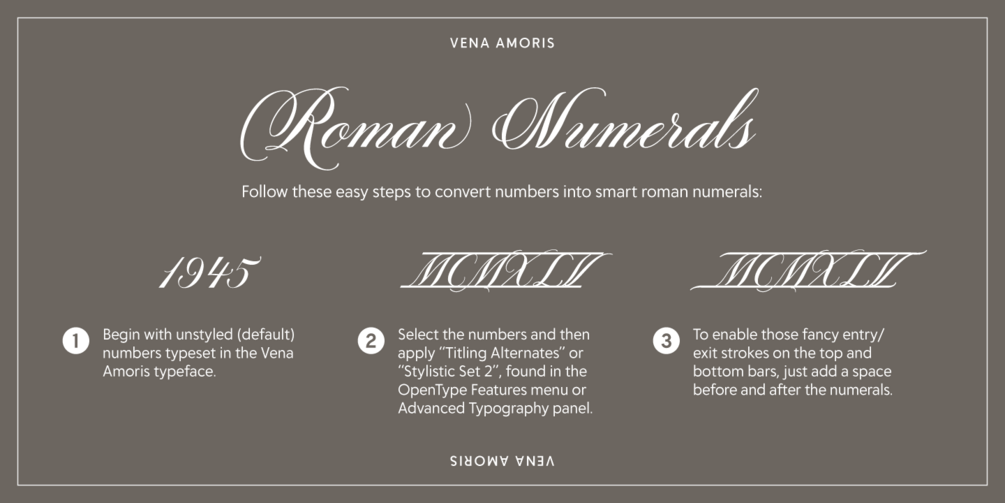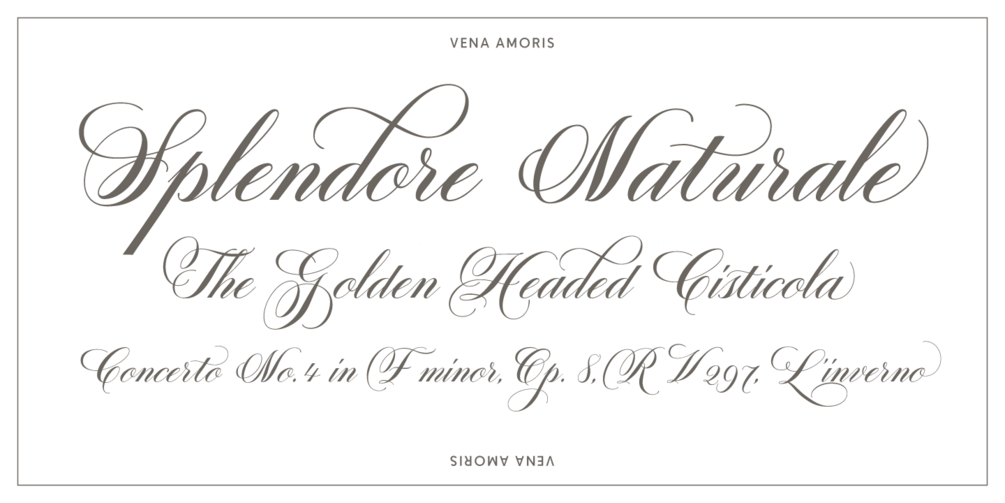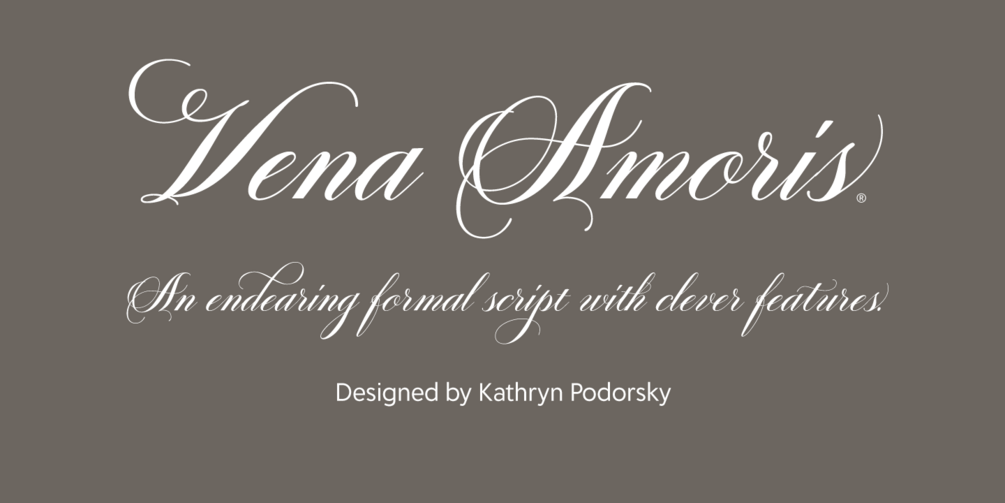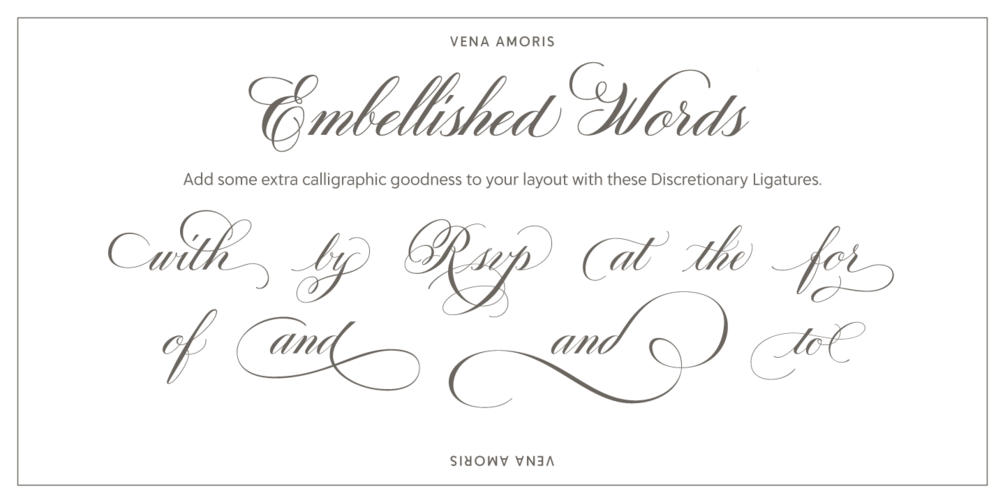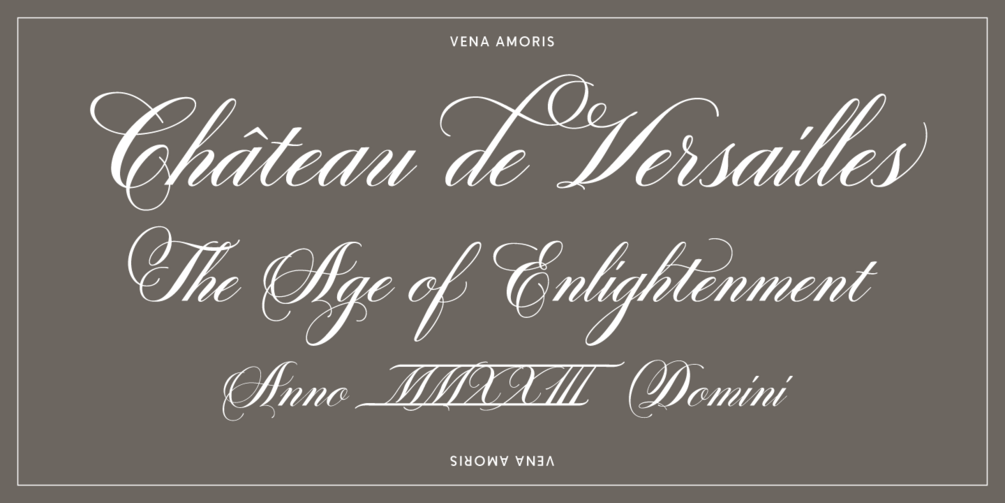
Vena Amoris, or “Vein of Love” refers to a phrase coined by Henry Swinburne in his “A Treatise of Espousal” published in 1686. It also refers to the fourth finger on the left hand which was traditionally believed to contain a vein running directly to the heart - hence “the ring finger”.
As a digital font, Vena Amoris boasts an extensive Latin-based character set with stylistic and contextual alternates, ligatures swash variants, a set of oldstyle figures, and roman numerals. All driven by cleverly applied OpenType features allowing you to effortlessly add harmony and calligraphic beauty to your layout.
Use Vena Amoris for elegant wedding invitations and wine labels, fine chocolate and food packaging, perfume, jewelry, luxury linens, or anywhere a touch of elegance and refinement is needed.